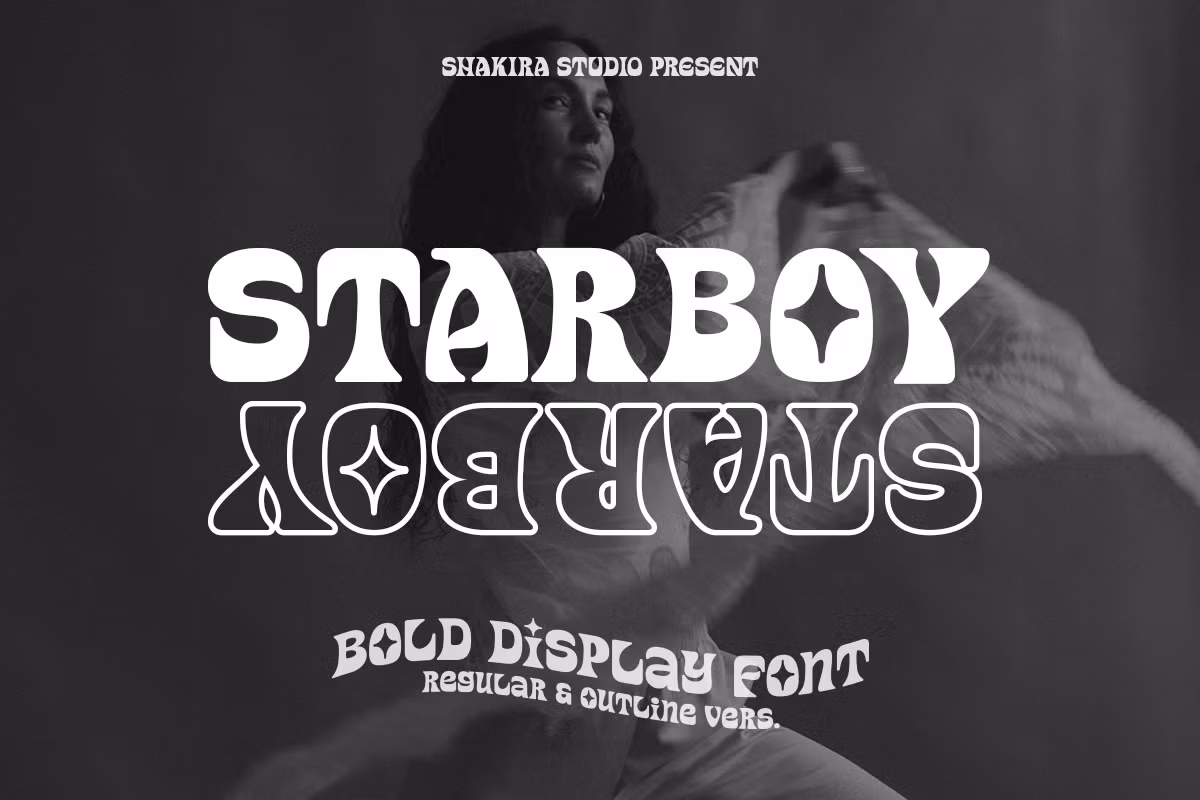
Starboy – Bold Display Font Free Download is a strong, modern typeface built to command attention. With thick strokes, futuristic curves, and a sleek, edgy vibe, this font is perfect for music artwork, streetwear branding, poster designs, sports graphics, tech logos, and bold editorial layouts.
Designed for maximum impact, Starboy Free Download works best in large-scale applications like headlines and titles. Its bold presence gives your typography a confident, contemporary look that’s both stylish and powerful.